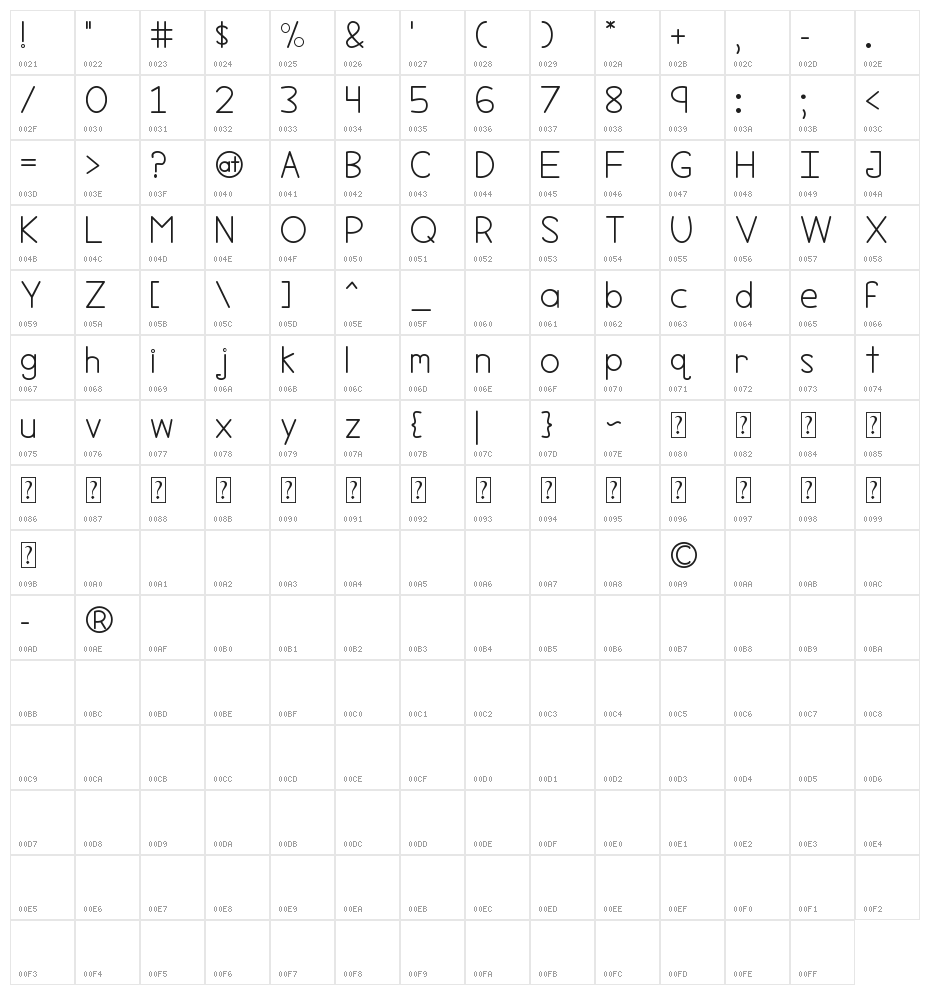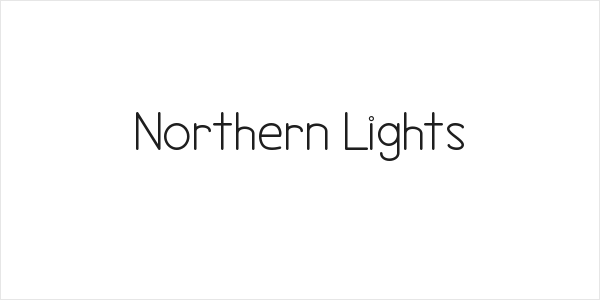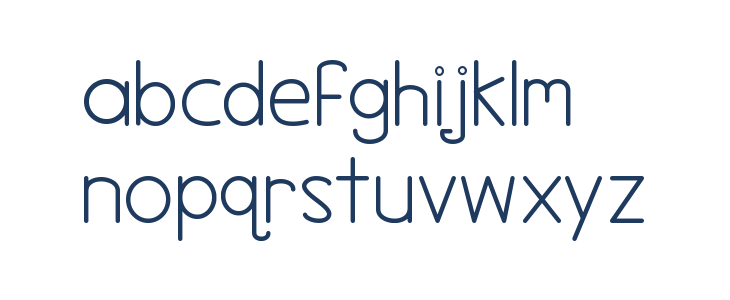
Northern Lights Font
Northern Lights Description
This font features a clean, geometric design with rounded edges, giving it a modern and approachable appearance. The uniform stroke width and minimalistic style make it highly legible, while the rounded terminals add a touch of friendliness. The uppercase and lowercase letters are well-proportioned, and the numerals are clear and distinct. Special characters maintain the same rounded aesthetic, ensuring consistency across all glyphs. This font's simplicity and clarity make it versatile for various design applications.